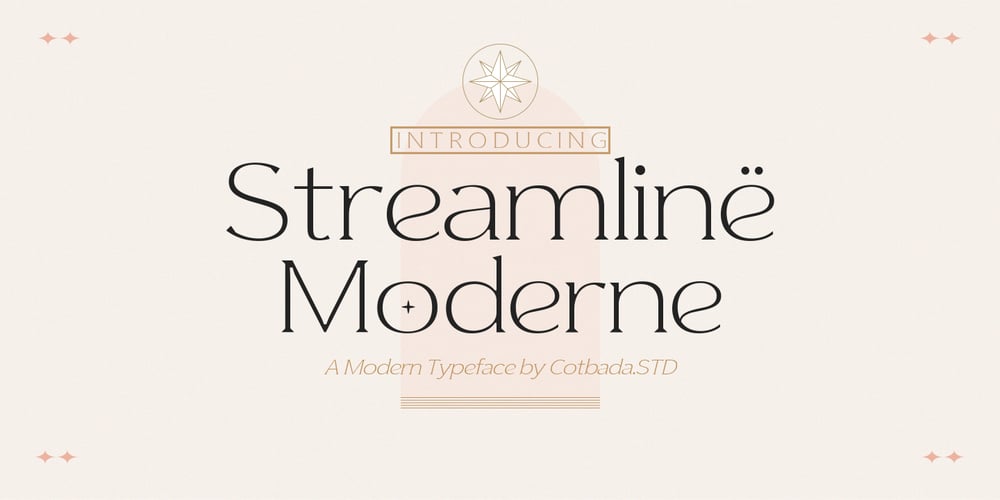
Streamline Moderne Font Family was designed by Isfani and published by Cotbada Studio. Streamline Moderne contains 2 styles and family package options. Streamline Moderne is a gorgeous serif typeface that is both classically elegant and modern. Create beautiful wedding invitations, use it as an elegant solution for your next magazine layout,logo, powerpoint templates design , quotes teks or choose Streamline Moderne for any graphics that require a sleek look with a vintage flair.Create something beautiful today with Streamline Moderne.What’s included?- Uppercase Characters- Lowercase Characters- Multilingual support for various languages including: French, German, Spanish, Portuguese, Italian, Dutch, Finnish, Swedish, and more.